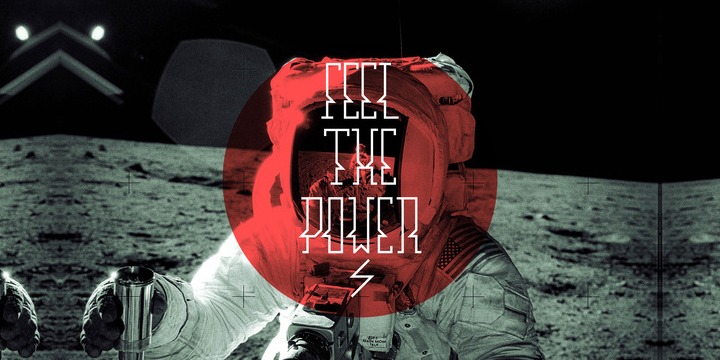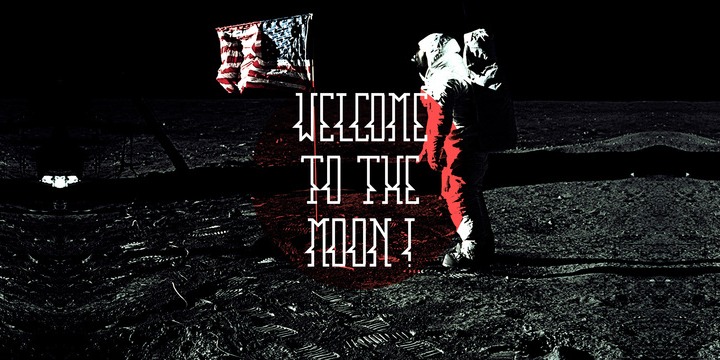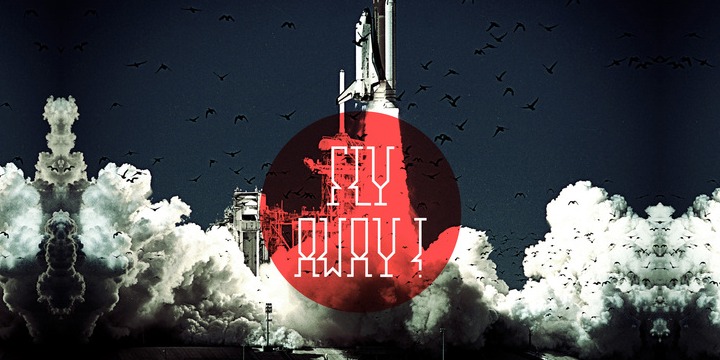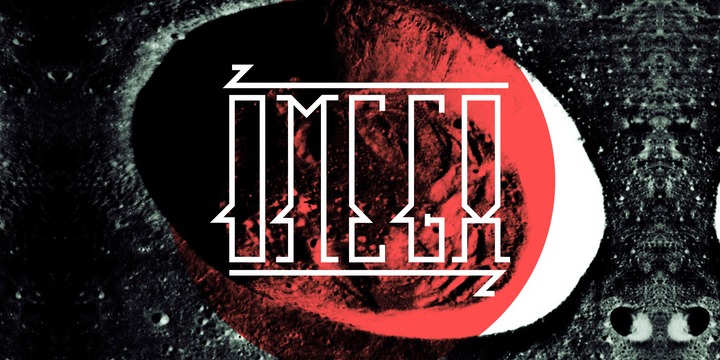
Omega Font
Omega is a display font designed by Diogo Pisoeiro. Although Omega only has a limited number of characters, this display face with a unique style will work well for graphic design and display work.